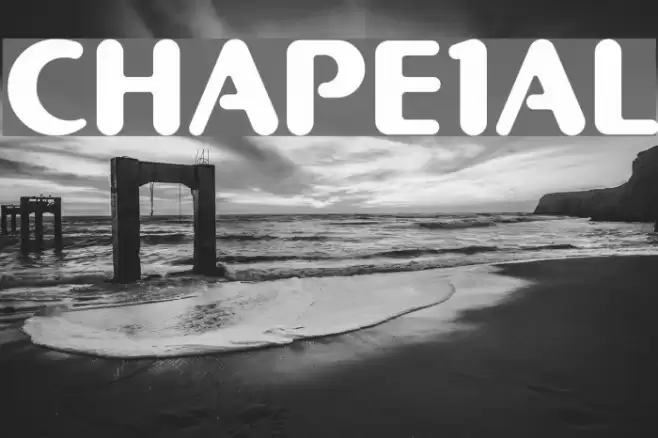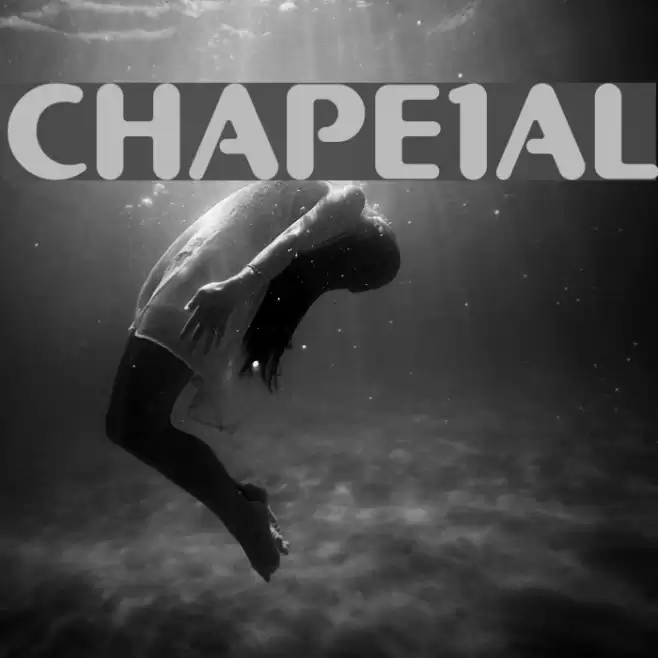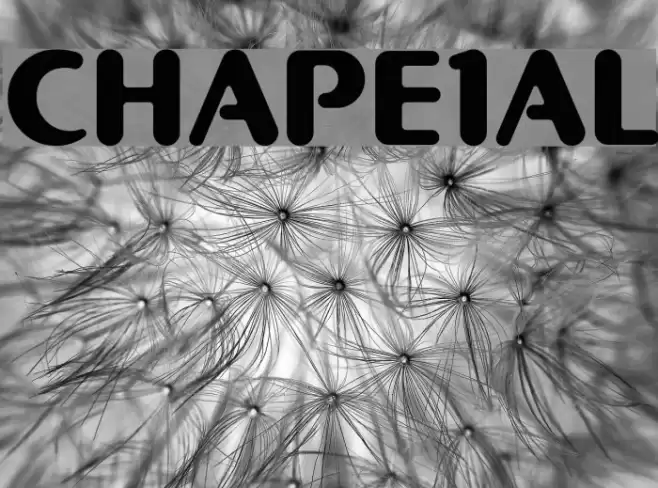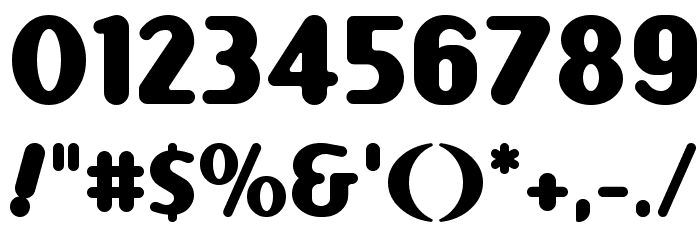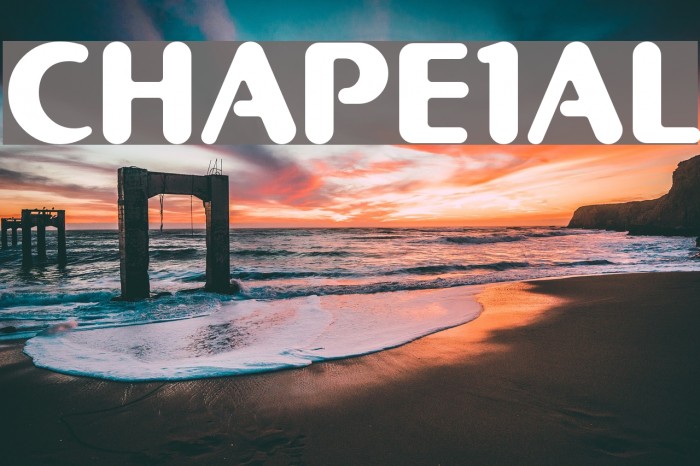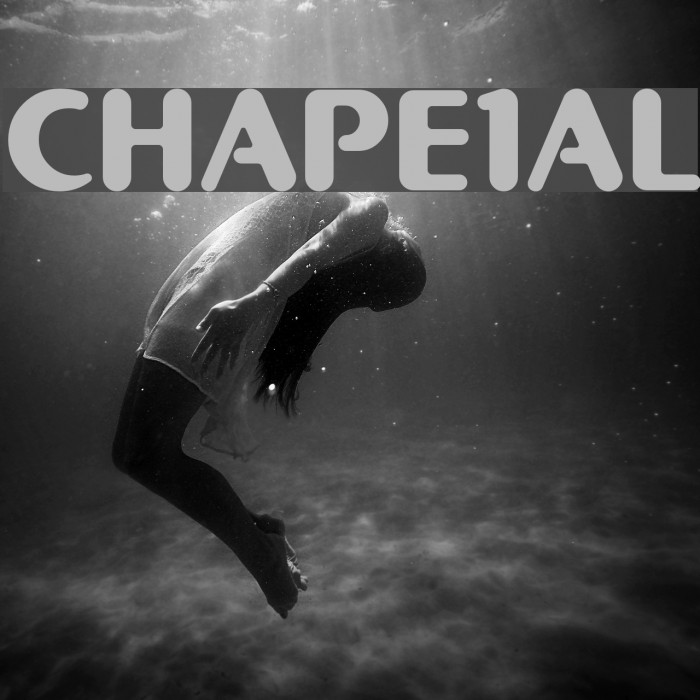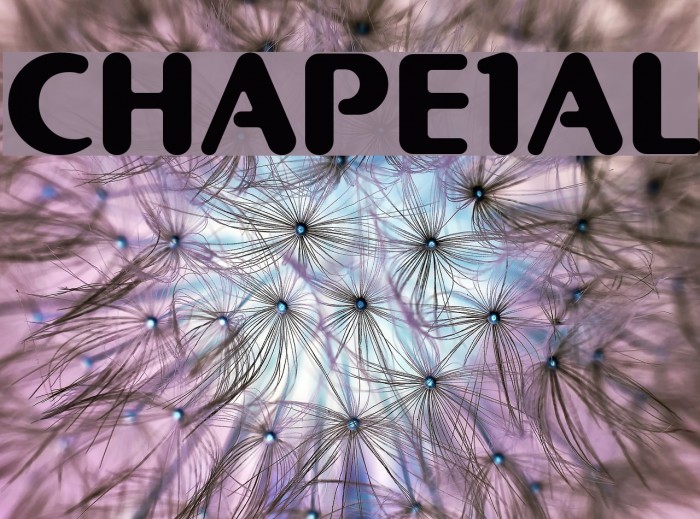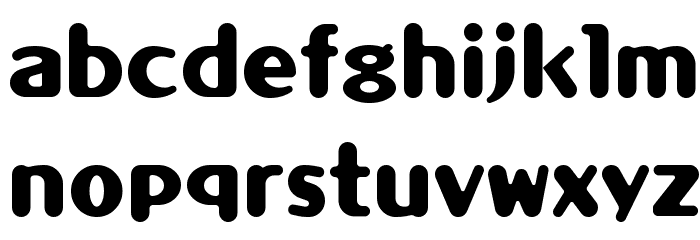
CHAPE1AL Font
CHAPE1AL Description
This font features a bold and rounded style, characterized by its smooth curves and thick strokes. The letters are evenly weighted, providing a sense of balance and uniformity. The uppercase and lowercase characters maintain a consistent design, with rounded edges that give a friendly and approachable appearance. The numerals and special characters follow the same rounded aesthetic, ensuring cohesion across all elements. The overall look is modern and playful, making it suitable for projects that require a touch of whimsy and warmth.
A bold, rounded font with smooth curves and a modern, playful style from Uncategorized fonts.
- Proposed Projects: Ideal for children's books, playful branding, casual invitations, and friendly advertising campaigns.